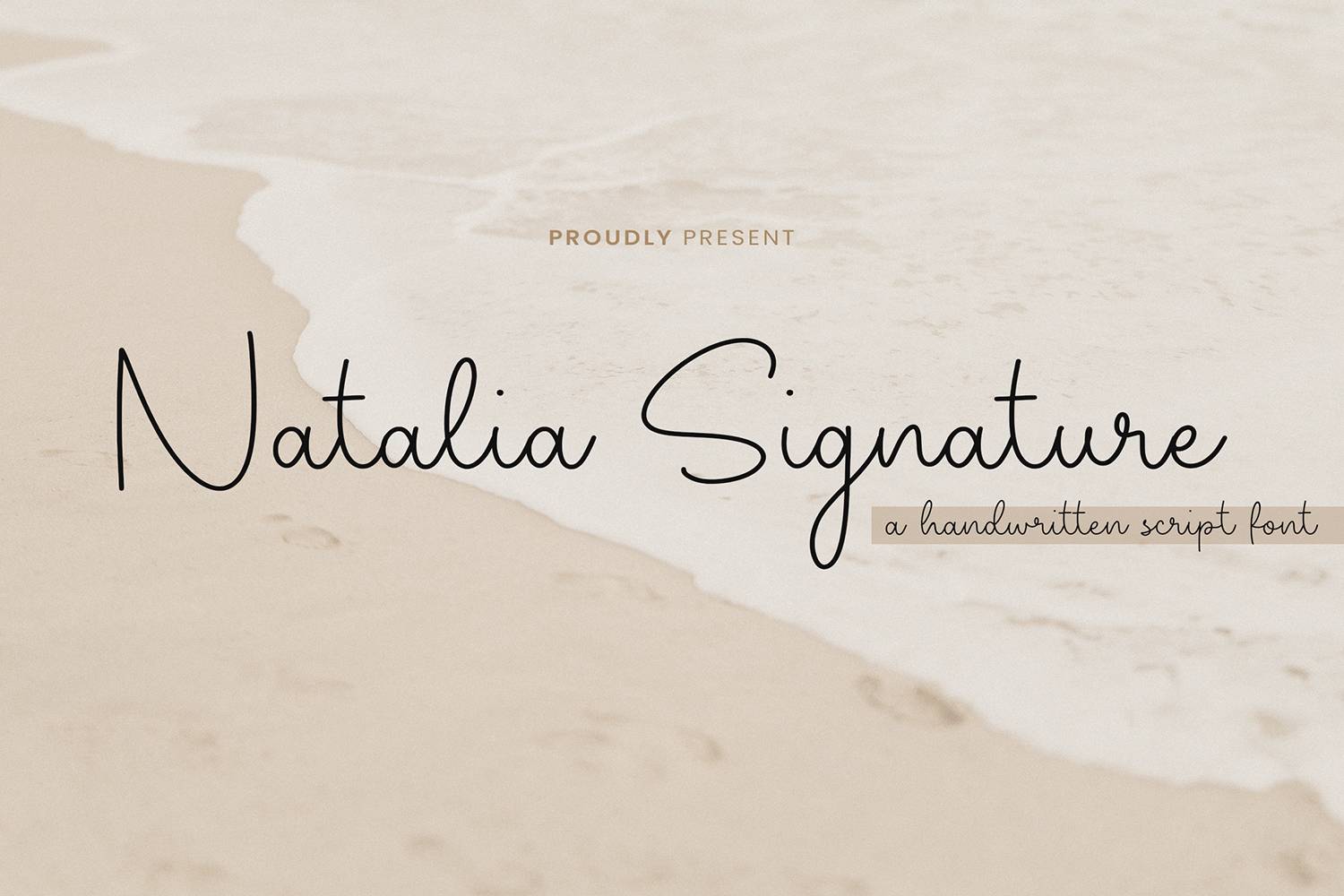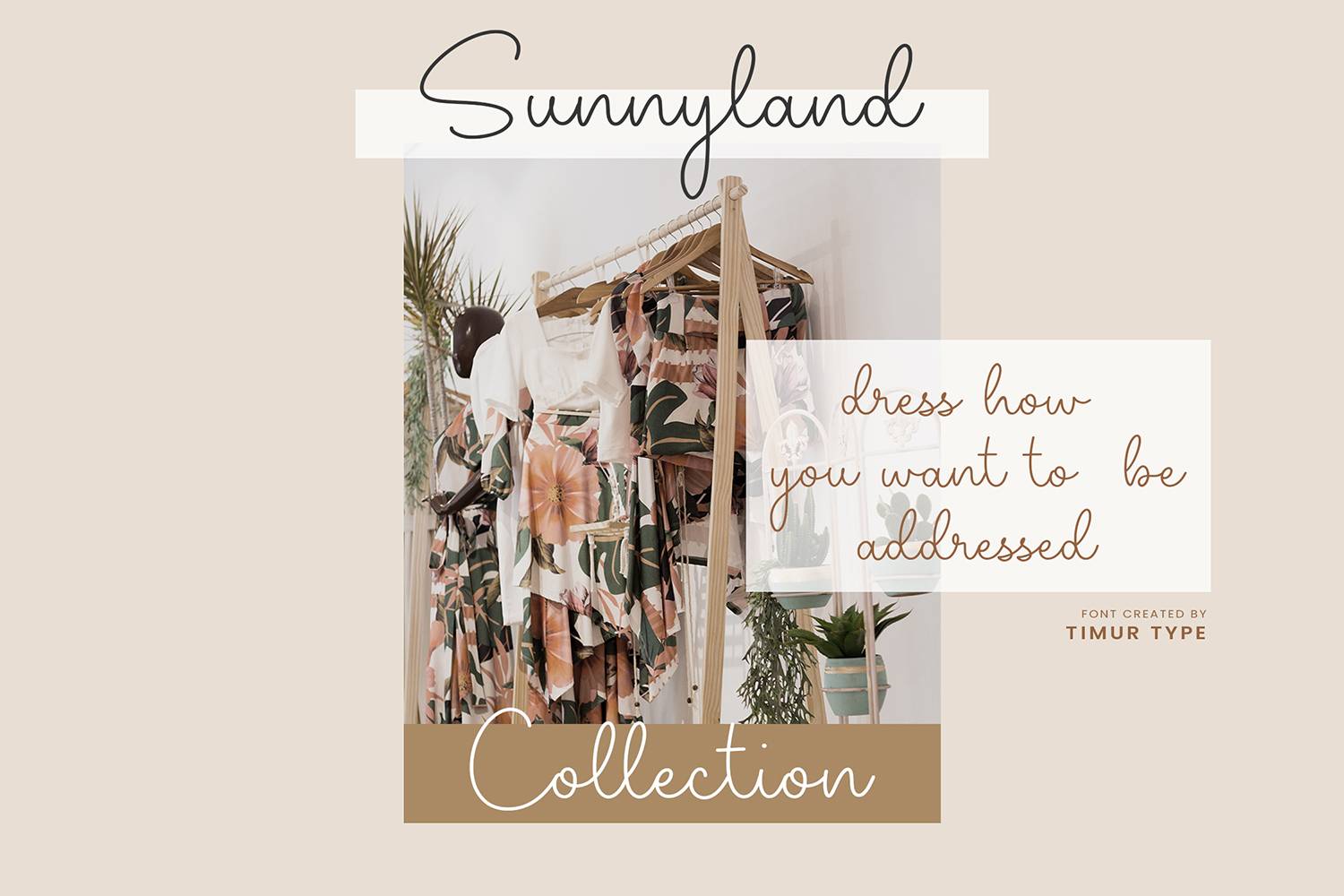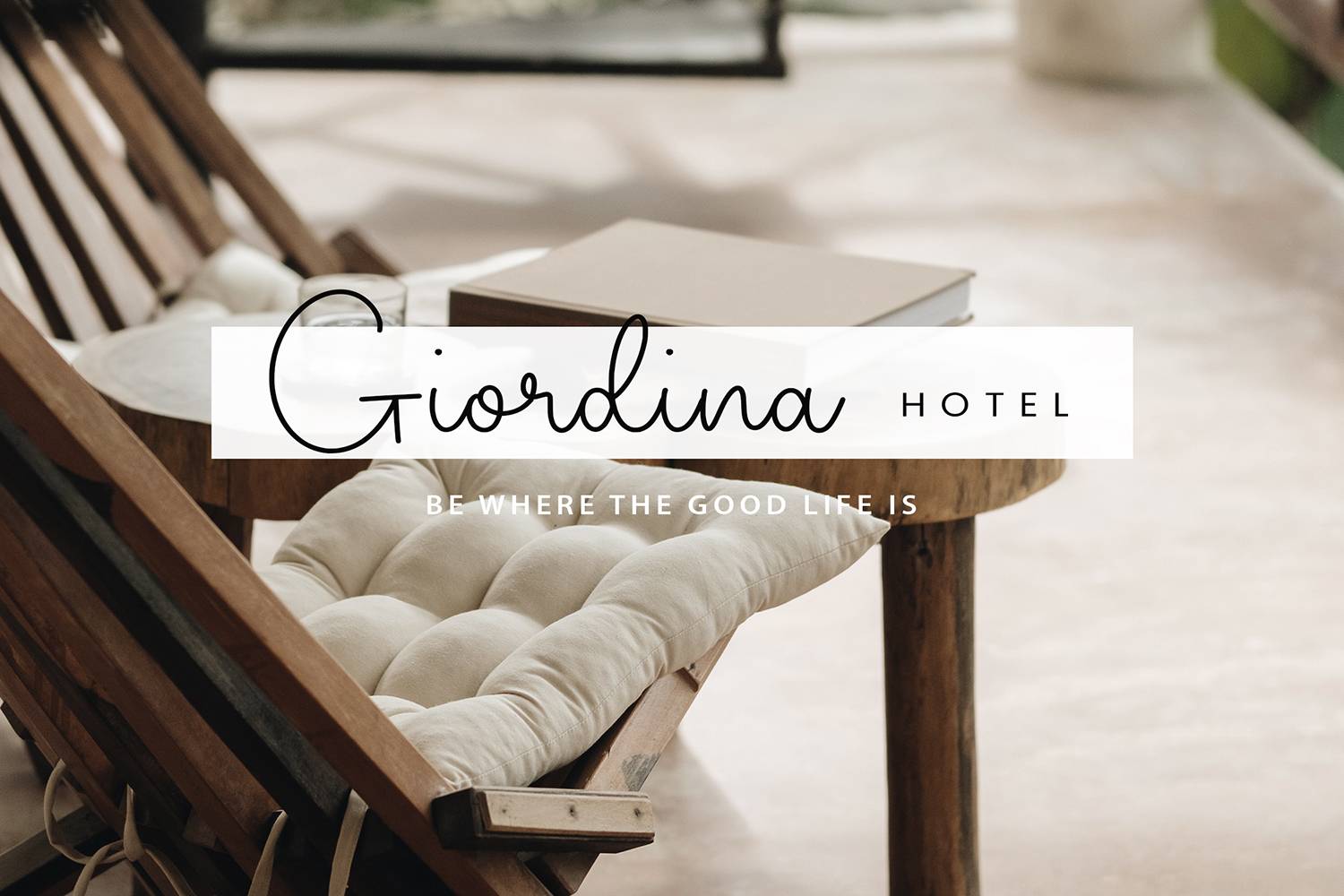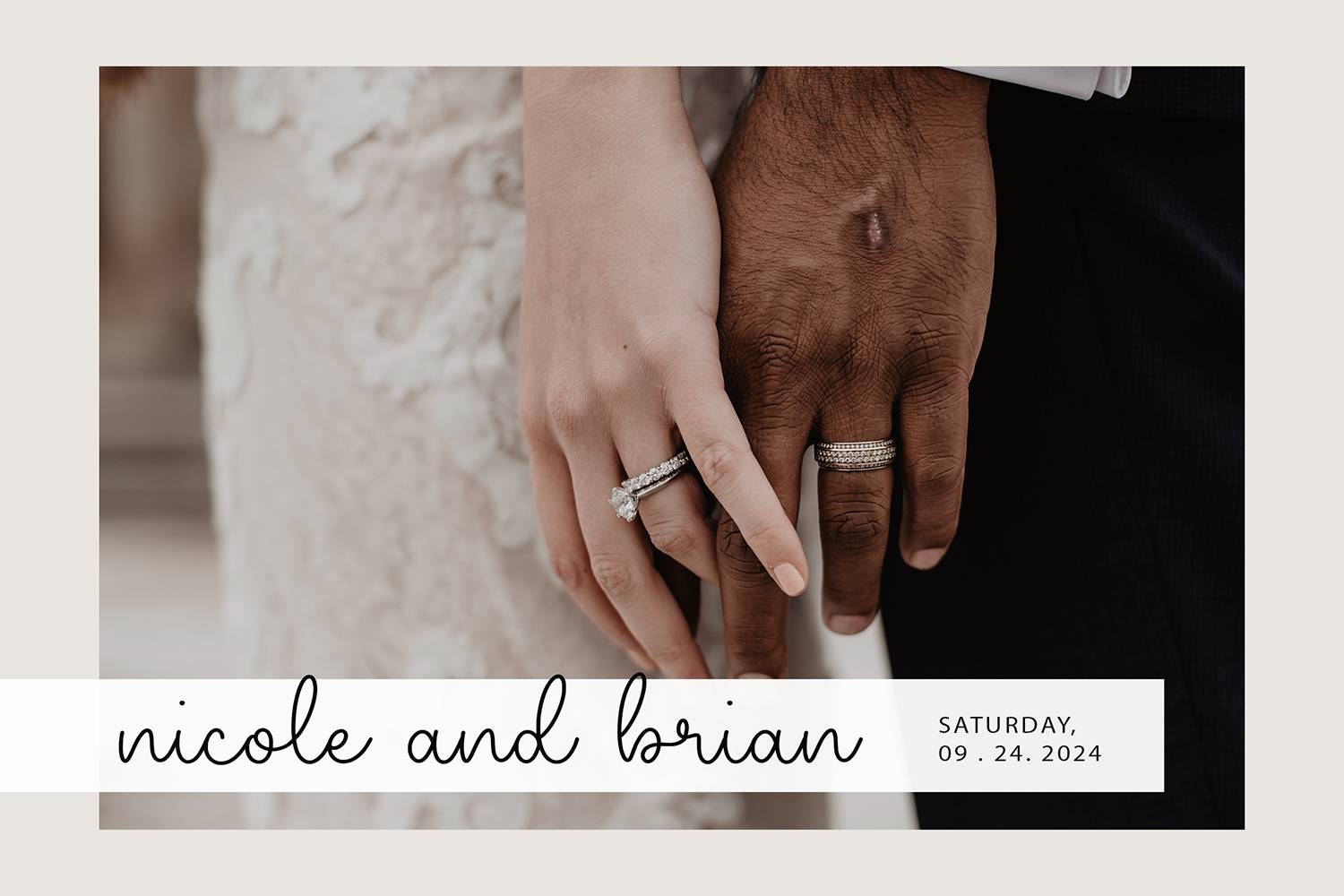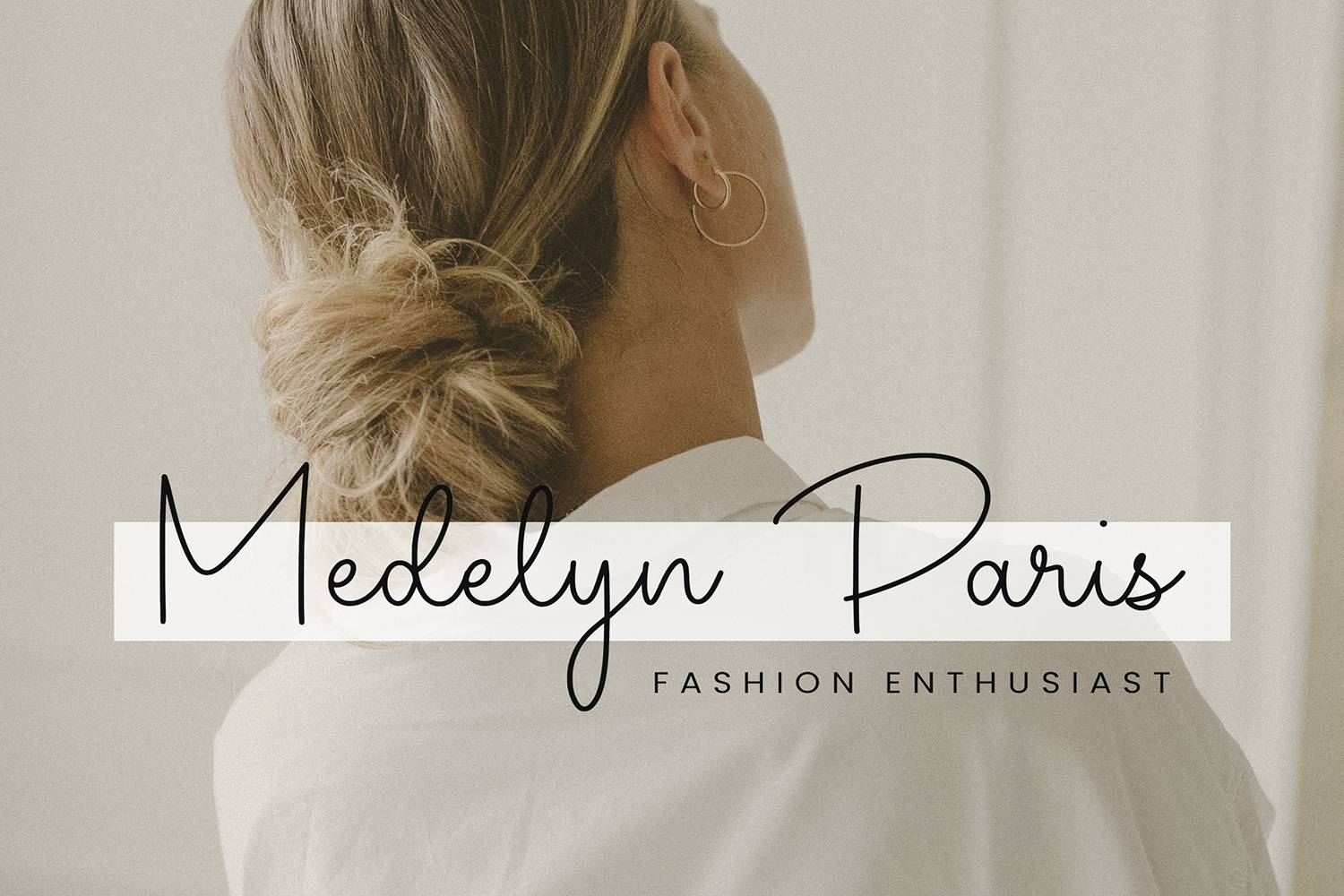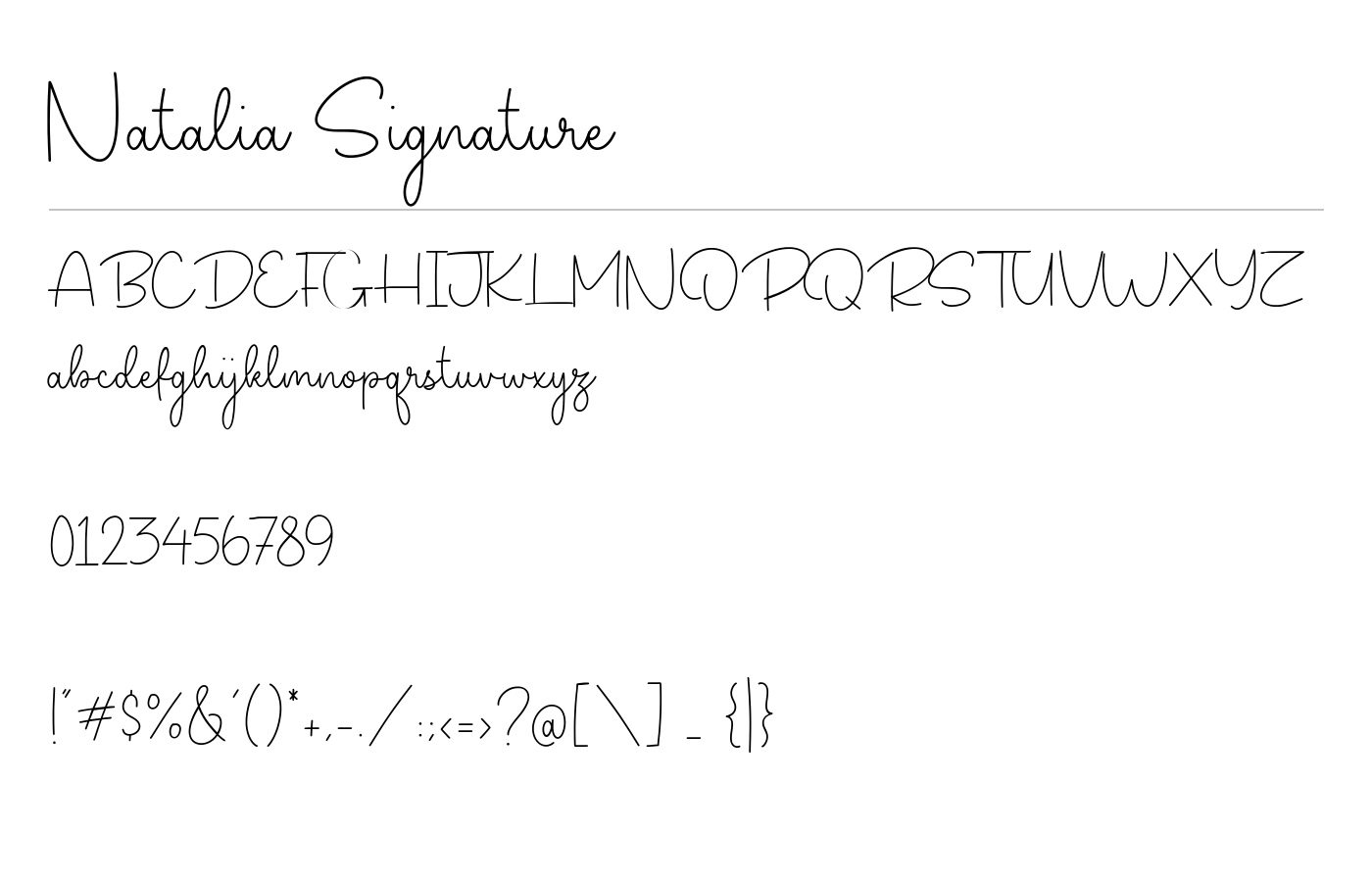
Natalia Signature Font is a delicate and elegant handwritten script that combines slender, graceful strokes with a casual, personal touch. Its light weight and airy spacing create a refined, approachable look perfect for invitations, branding, and creative projects seeking a stylish yet intimate feel. This font’s handwritten charm makes it ideal for adding a bespoke, artisanal vibe to designs without sacrificing clarity or sophistication.
Natalia Signature Font
About Natalia Signature Font